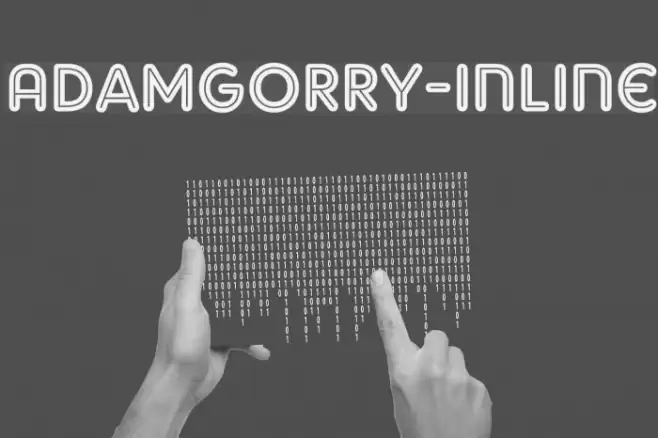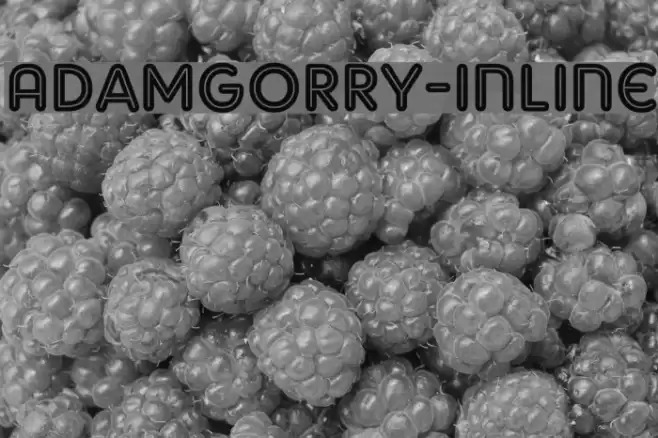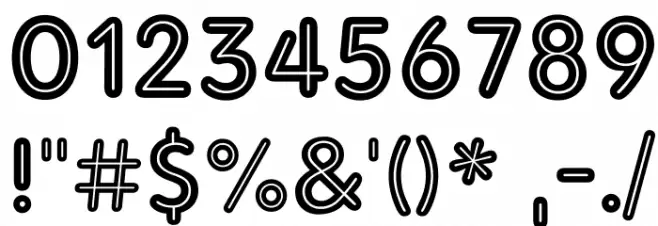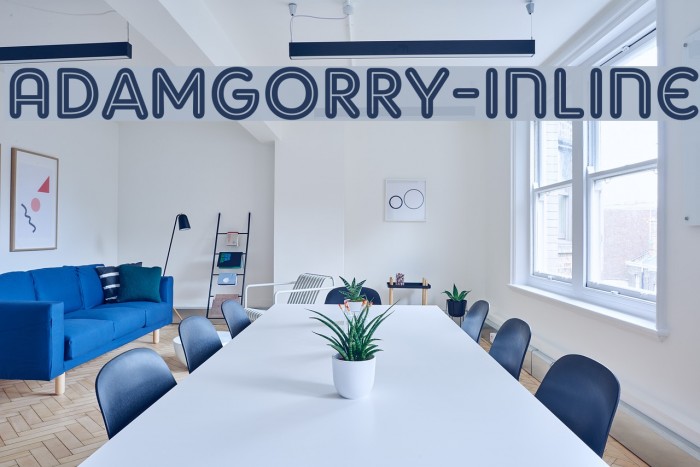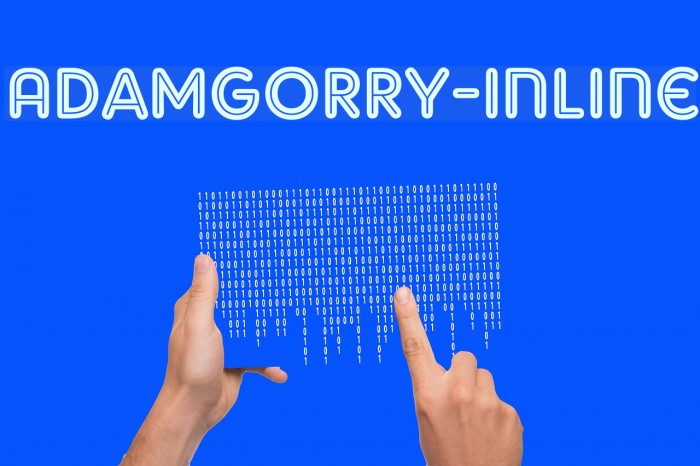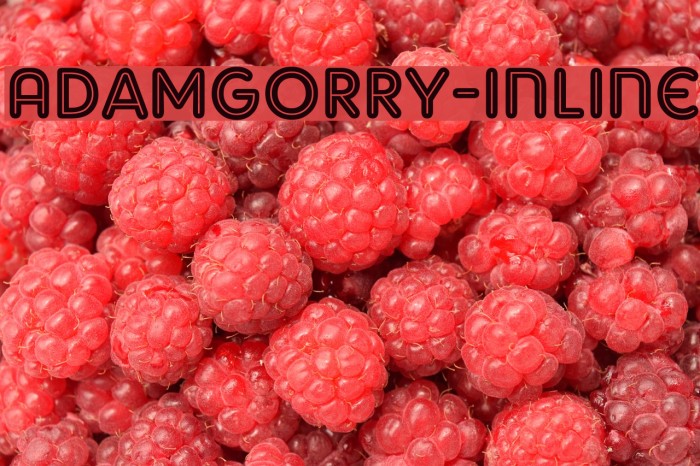
AdamGorry-Inline Font
AdamGorry-Inline Description
This font features a clean, modern design with a distinctive inline style that adds depth and interest to each character. The uppercase and lowercase letters are well-proportioned, maintaining a consistent line weight that enhances readability. The numerals are clear and easily distinguishable, while the special characters are thoughtfully designed to complement the overall aesthetic. The font's geometric shapes and smooth curves give it a contemporary feel, making it suitable for a variety of design projects. Its unique inline detail sets it apart, providing a subtle yet effective way to draw attention to text.
A modern, inline font with geometric shapes and smooth curves from Decorative fonts.
- Proposed Projects: Ideal for branding, headlines, posters, and digital media where a modern and distinctive look is desired.
- Use Case: Headlines, Logos, Branding